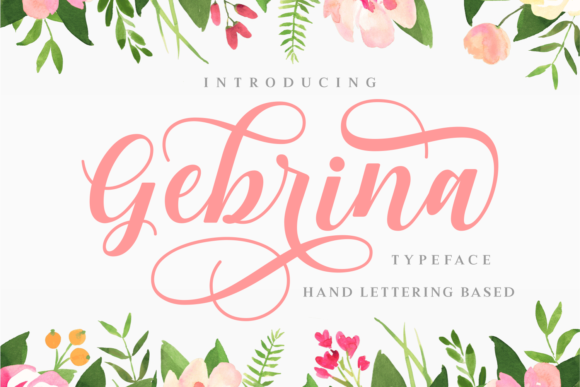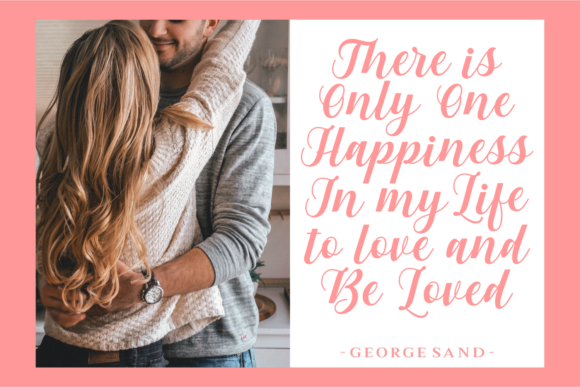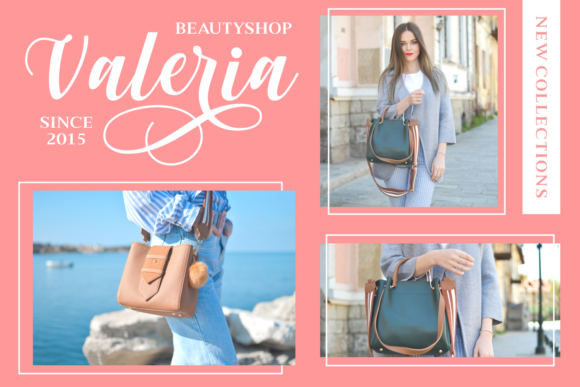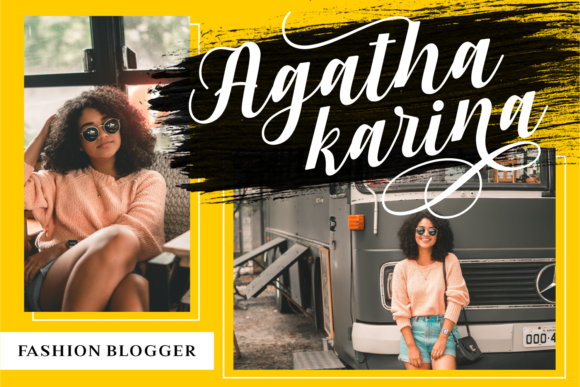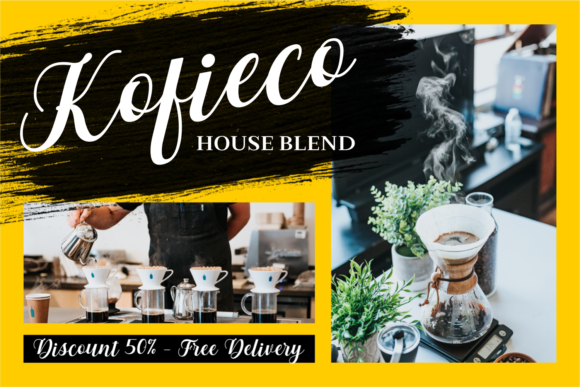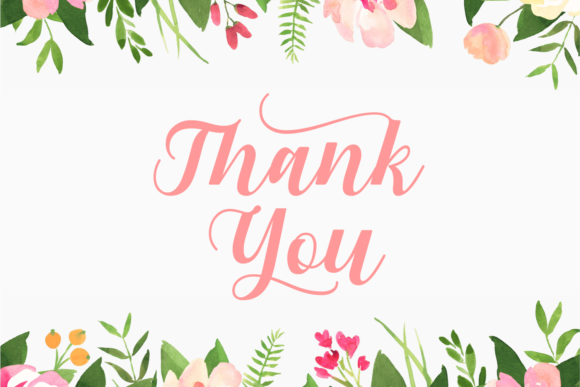
Gebrina Font
About Gebrina Font
Gebrina is a fun and feminine looking typeface. Gebrina comes with beautiful stylistic alternates which will give your design a classy and playful feel.